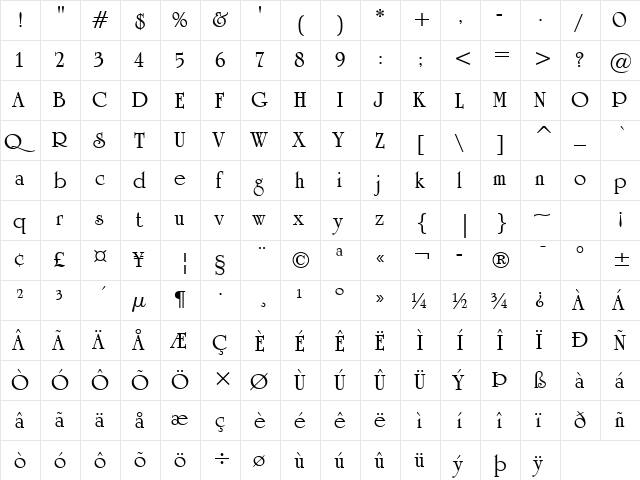
UnivrstyRoman Bd BT Bold
Design Context for UnivrstyRoman Bd BT Typeface
UnivrstyRoman Bd BT takes a measured approach to typography — its balanced proportions and neutral character make it a reliable workhorse for both digital and print work. The heavy weight commands attention and anchors typographic hierarchies.